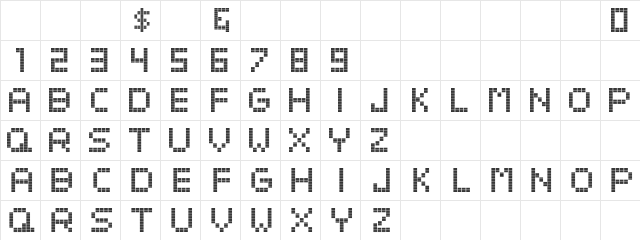
Beato ExtBd Head Regular
| Designer | RAVI KUMAR |
Design Context for Beato ExtBd Head Typeface
Beato ExtBd Head takes a measured approach to typography — its balanced proportions and neutral character make it a reliable workhorse for both digital and print work.
Pro Tip: Pair Beato ExtBd Head with a font of contrasting weight or personality to build a more expressive typographic hierarchy.